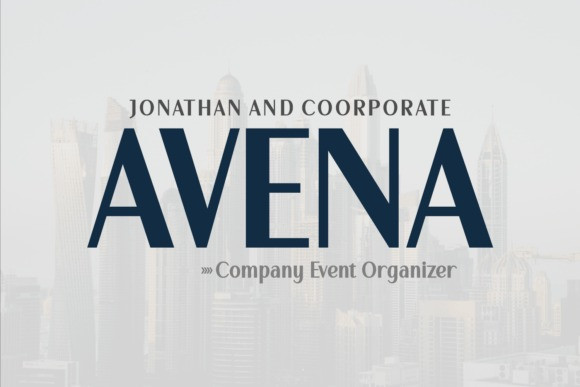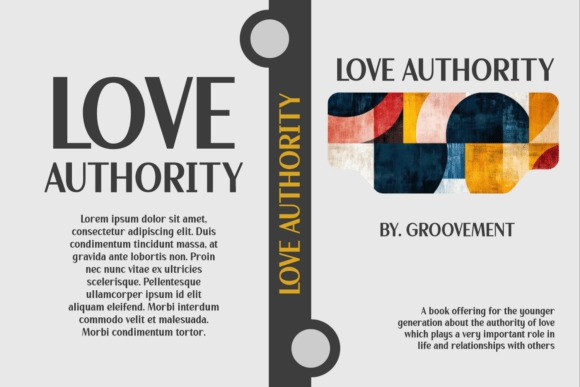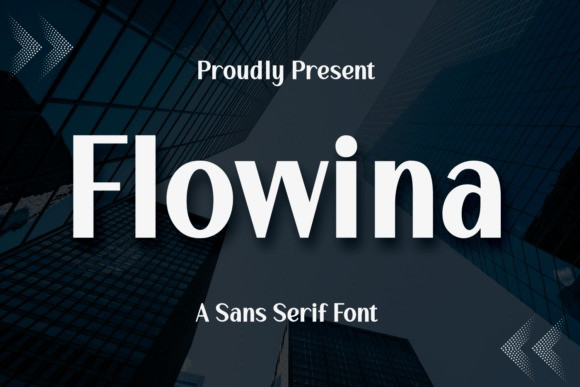
Flowina Font is a modern sans serif font with a sleek, professional look that flows effortlessly across any design. Its clean lines, smooth curves, and contemporary feel make it an excellent choice for corporate branding, digital projects, editorial layouts, and modern advertising. Flowina combines elegance with readability, ensuring your message stands out with clarity and style.